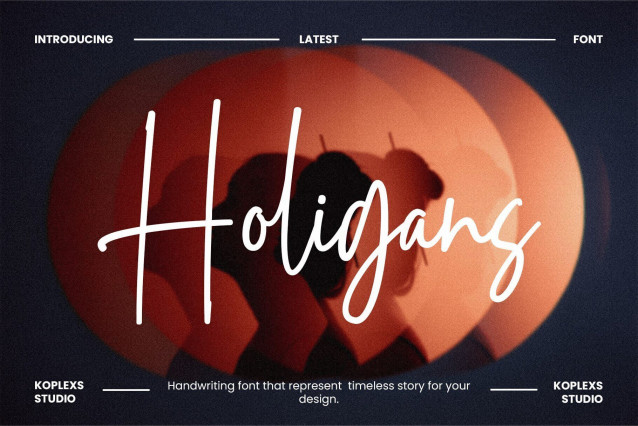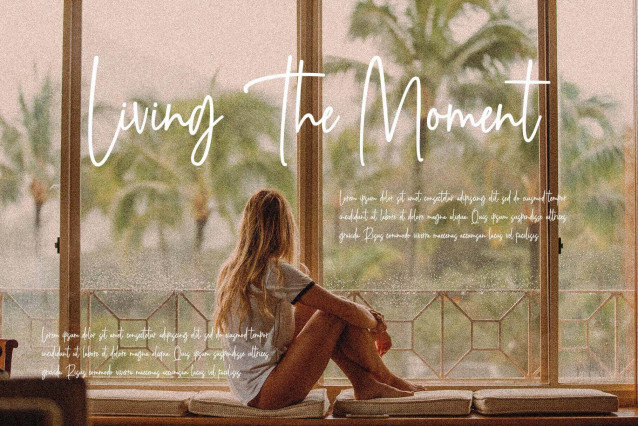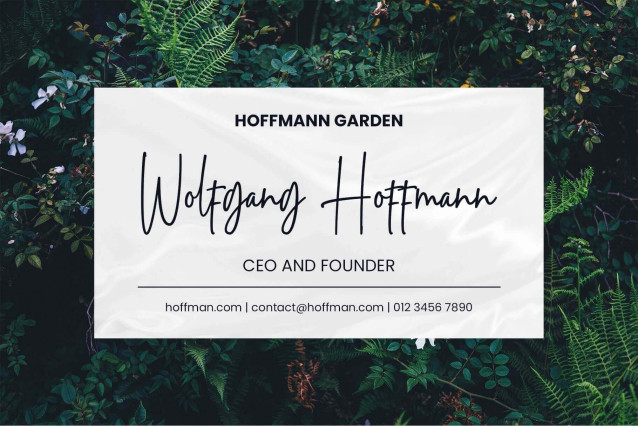
Holigans Font
Holigans Font is a beautifully crafted handwritten script font that blends elegance, creativity, and modern design. With its smooth cursive strokes and natural flow, this signature font captures the charm of authentic handwriting while maintaining a professional and luxurious feel. Perfect for branding, wedding invitations, logos, cosmetic packaging, and aesthetic projects, Holigans adds sophistication and personality to every design. Its timeless appeal makes it a top choice for anyone seeking a calligraphy font with both warmth and class.
Designed as a versatile modern font, Holigans works seamlessly across digital and print media. Whether you’re creating a wedding font for romantic events, a branding font for luxury products, or an elegant font for logos and marketing materials, this typeface enhances visual impact with style. Use it as a logo font, cosmetic font, or aesthetic font to elevate your brand identity. Make every project stand out with the graceful and refined beauty of Holigans Font.